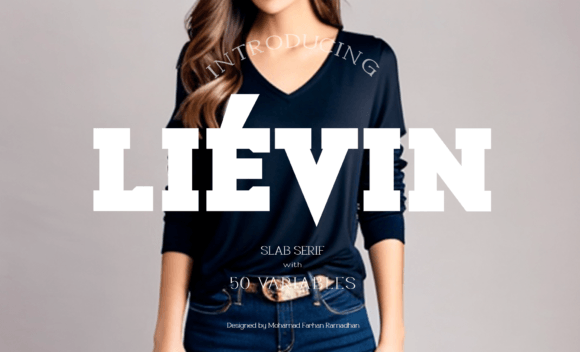
Unleash the Power of Typography with Liévin: A Slab Serif Font Family for Creative Visionaries
In the realm of visual communication, typography reigns supreme as the art of shaping words into evocative visual expressions. It's the key to unlocking emotions, conveying messages, and leaving a lasting impression on your audience. And when it comes to selecting the perfect typographic tool for your creative endeavors, Liévin stands as a beacon of inspiration.
Liévin: A Legacy of Elegance and Versatility
Liévin, a captivating slab serif font family crafted by the renowned Mofr24 Studio, embodies the essence of timeless elegance and unwavering versatility. Its clean lines and graceful curves exude a sophisticated charm that elevates any design project. Whether you're crafting posters that demand attention, marketing materials that leave an impact, or logotypes that exude authority, Liévin rises to the occasion, effortlessly adapting to your creative vision.
A Universe of Typographic Possibilities
With an astonishing array of 50 variable styles, ranging from the delicate Thin to the bold and commanding Massive Black, Liévin empowers you to explore a boundless spectrum of typographic possibilities. This remarkable flexibility makes it an invaluable asset for designers seeking to create visually striking headlines that captivate readers, body text that flows effortlessly, and book layouts that engage and transport.
Beyond its versatility, Liévin possesses an inherent charm that transcends mere functionality. Its meticulously crafted serifs add a touch of sophistication to your designs, while its harmonious proportions ensure readability even at small sizes. Whether you're designing for print or digital, Liévin ensures your message is conveyed with clarity and impact.
A Creative Ally for Diverse Projects
Liévin's versatility extends far beyond the realm of traditional typography. Its adaptability makes it an ideal choice for a diverse range of creative projects, including:
- Posters: Create posters that command attention with Liévin's bold and impactful styles. Its ability to convey messages succinctly and powerfully makes it the perfect choice for capturing the essence of your event or promotion.
- Marketing Materials: Craft marketing materials that leave a lasting impression with Liévin's elegant and persuasive style. From brochures and flyers to social media graphics, Liévin elevates your marketing efforts.
- Logotypes: Design logotypes that exude authority and distinction with Liévin's timeless appeal. Its ability to create a strong visual identity will ensure your brand stands out from the crowd.
- Headlines: Create headlines that grab attention and captivate readers with Liévin's bold and commanding presence. Its ability to convey messages in a visually striking manner will ensure your headlines leave a lasting impact.
- Books: Design books that engage and transport readers with Liévin's harmonious proportions and readability. Its ability to create a seamless reading experience will keep your audience engrossed from beginning to end.
- Magazines: Craft magazines that exude sophistication and style with Liévin's elegant and versatile presence. Its ability to adapt to various content types makes it an ideal choice for creating visually appealing and informative layouts.
Liévin: The Ultimate Typographic Toolkit
Liévin is more than just a font family; it's a creative toolkit that empowers you to transform your vision into reality. Its versatility, adaptability, and timeless appeal make it an indispensable tool for any designer seeking to create captivating and impactful designs. Unleash the power of typography with Liévin and elevate your creative projects to new heights.